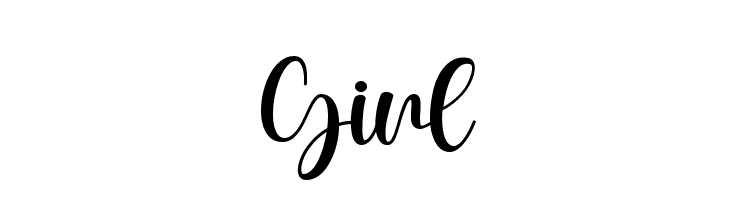
A bold, geometric font with a three-dimensional shadow effect, perfect for modern designs.
A bold, playful font with exaggerated, uneven strokes and a dynamic appearance.
A bold, halftone-effect font with a retro-futuristic, comic book style.
A playful, bold, and cartoon-like font with rounded, bubbly characters.
A decorative, abstract font with intricate curves and angular lines.
A bold, sans-serif typeface with a modern, geometric style.
An elegant, flowing script font with an italicized slant and thin, elongated characters.
A bold, shadowed script font with elegant, flowing characters.
A bold, angular font with a futuristic and dynamic style.
A bold, geometric font with sharp angles and a modern aesthetic.
A bold, expressive brushstroke font with a dynamic and textured appearance.
A modern, italic font with a striped, futuristic design and high contrast.
A modern, clean sans-serif font with a balanced and professional appearance.
A playful, handwritten font with thin, hairline strokes and a casual, informal style.
The image does not depict a valid font.
A bold, italic, modern font with geometric shapes and sharp angles.
A pixelated, blocky font with a retro digital style.
A bold, futuristic font with geometric shapes and sharp angles.
A playful, whimsical handwritten font with flowing, irregular strokes.
An illustrative, decorative font with each character set in a unique, playful scene.
A bold, decorative font with an engraved, three-dimensional effect.
A playful handwritten font with smooth, flowing lines and whimsical flourishes.
A modern, geometric sans-serif font with uniform stroke widths.
A playful, casual handwritten font with rounded, uneven strokes.
A bold, modern font with a slightly condensed and playful design.
A bold, expanded, and italicized font with a modern, dynamic style.
A modern, geometric font with sharp, angular lines and a futuristic style.
An ornate, vine-embellished decorative font with a whimsical, nature-inspired design.
A playful, handwritten font with smooth curves and a whimsical style.
An artistic outline font with a bold, decorative style and intricate detailing.